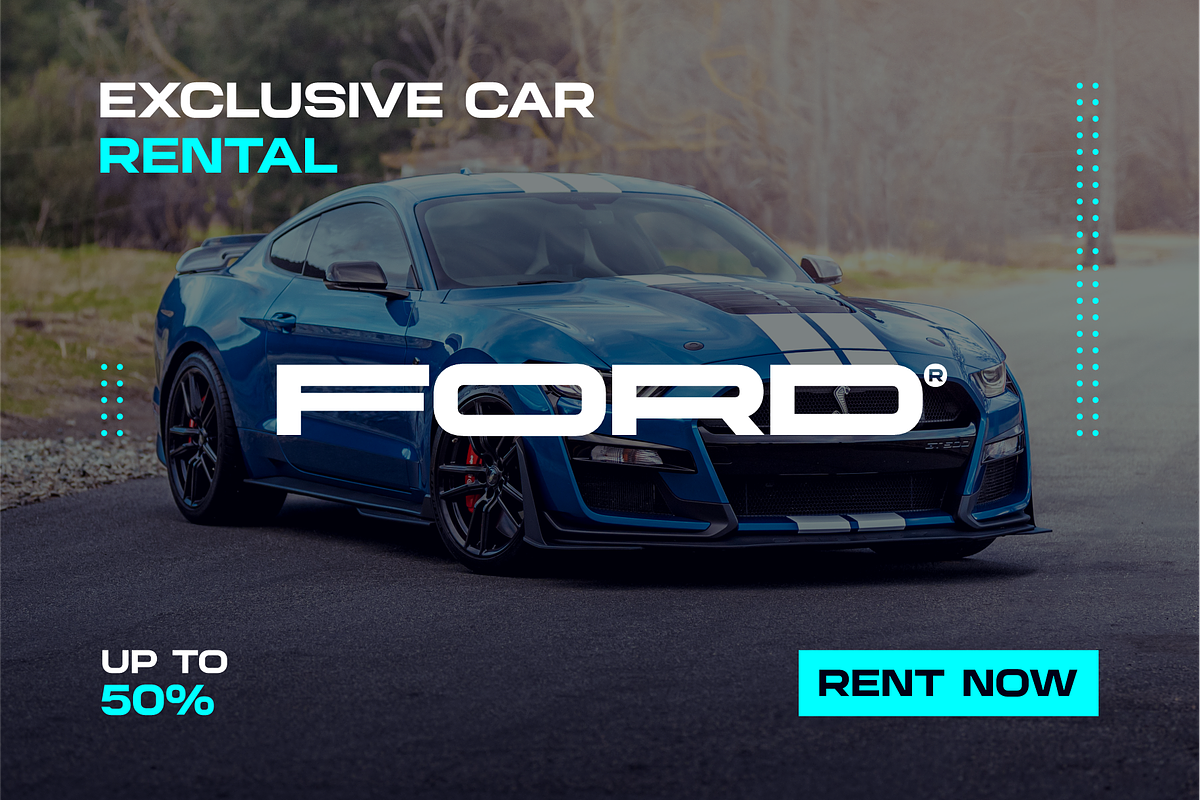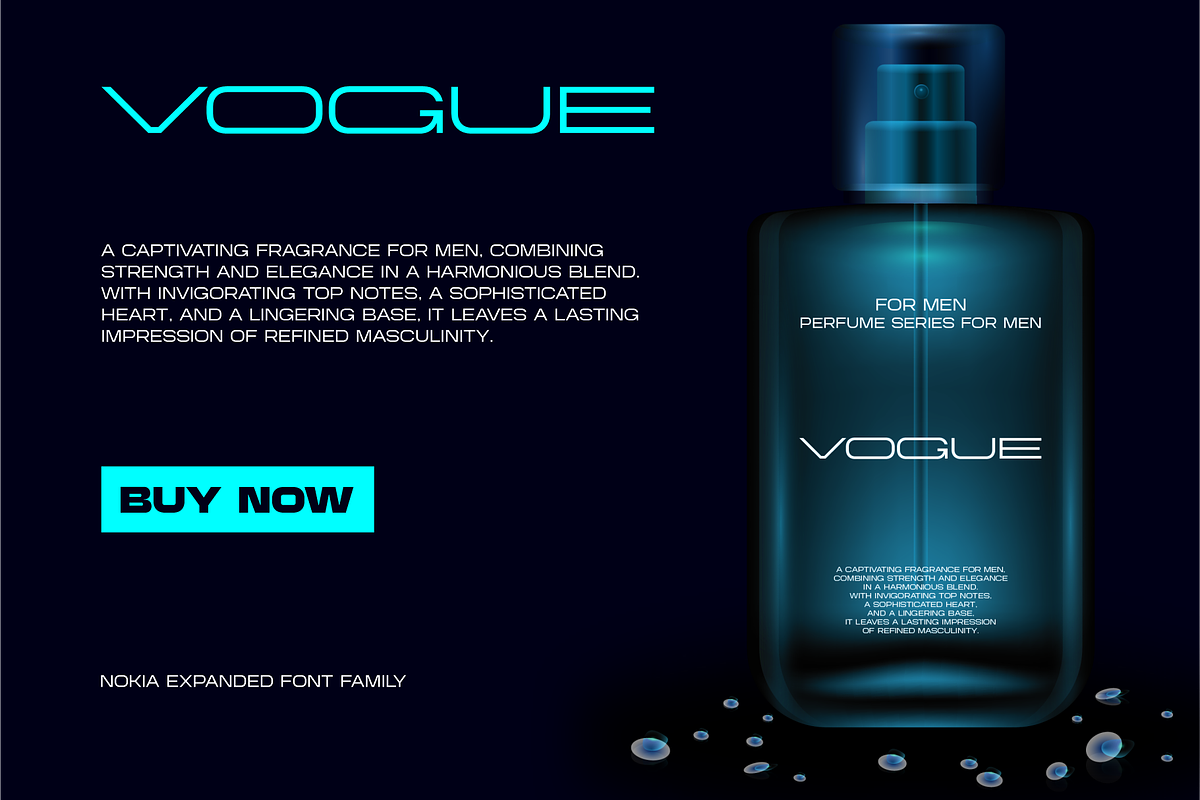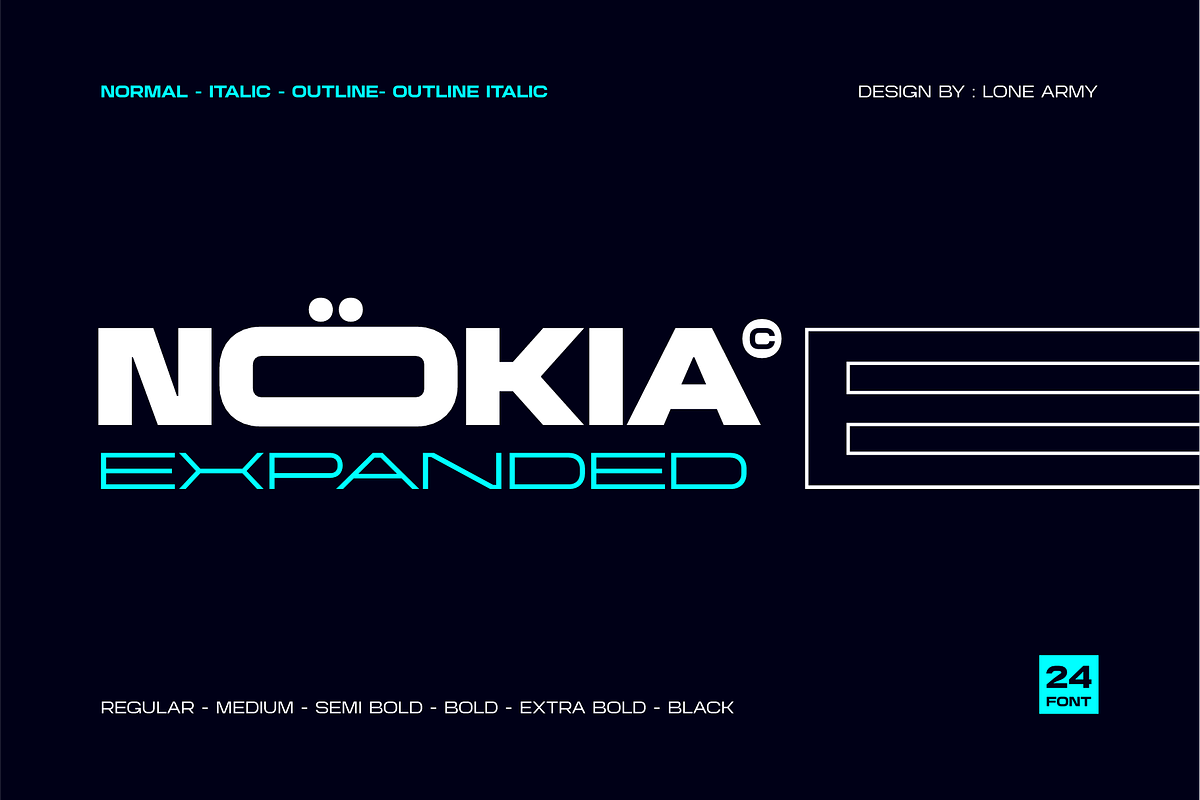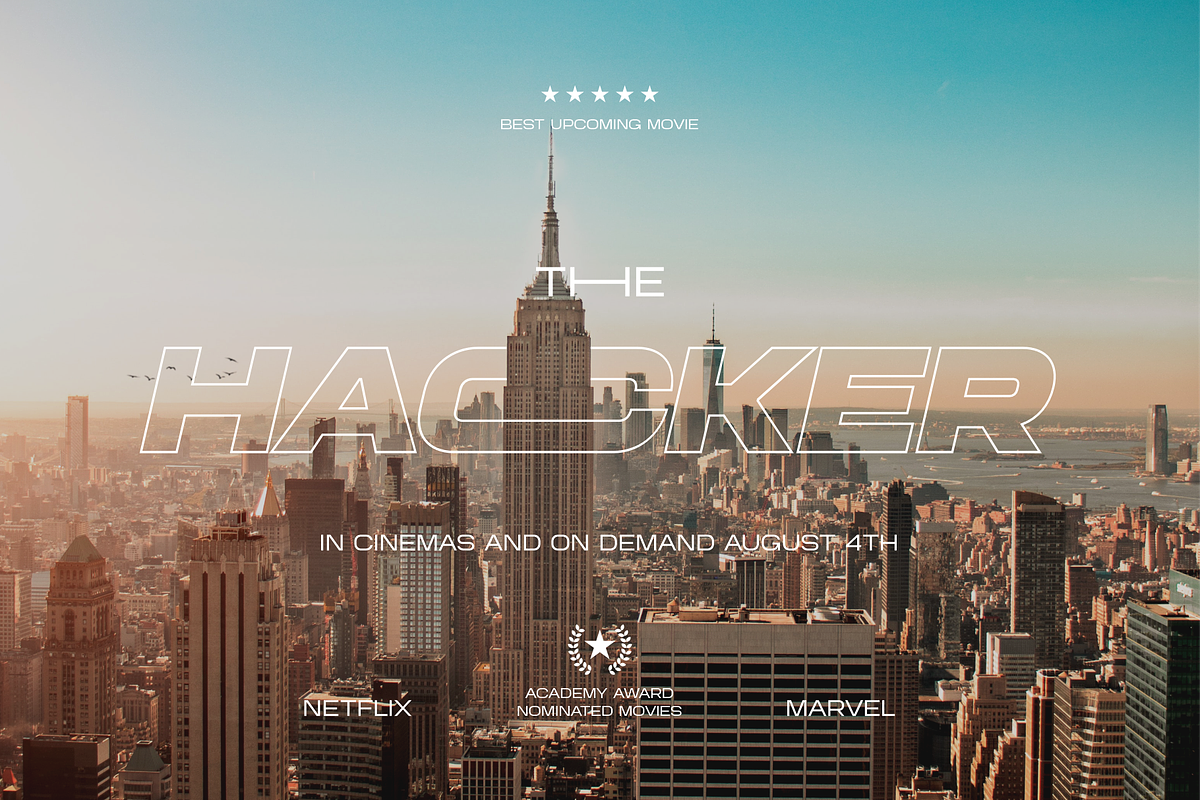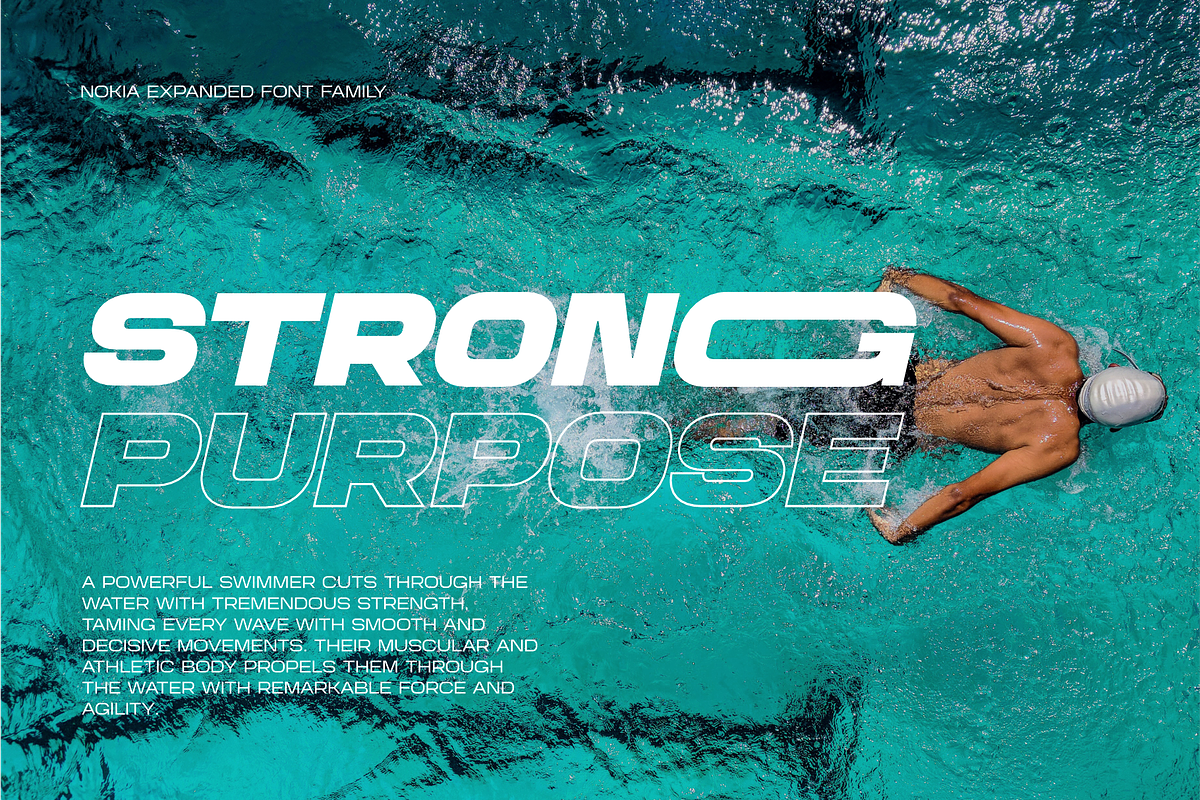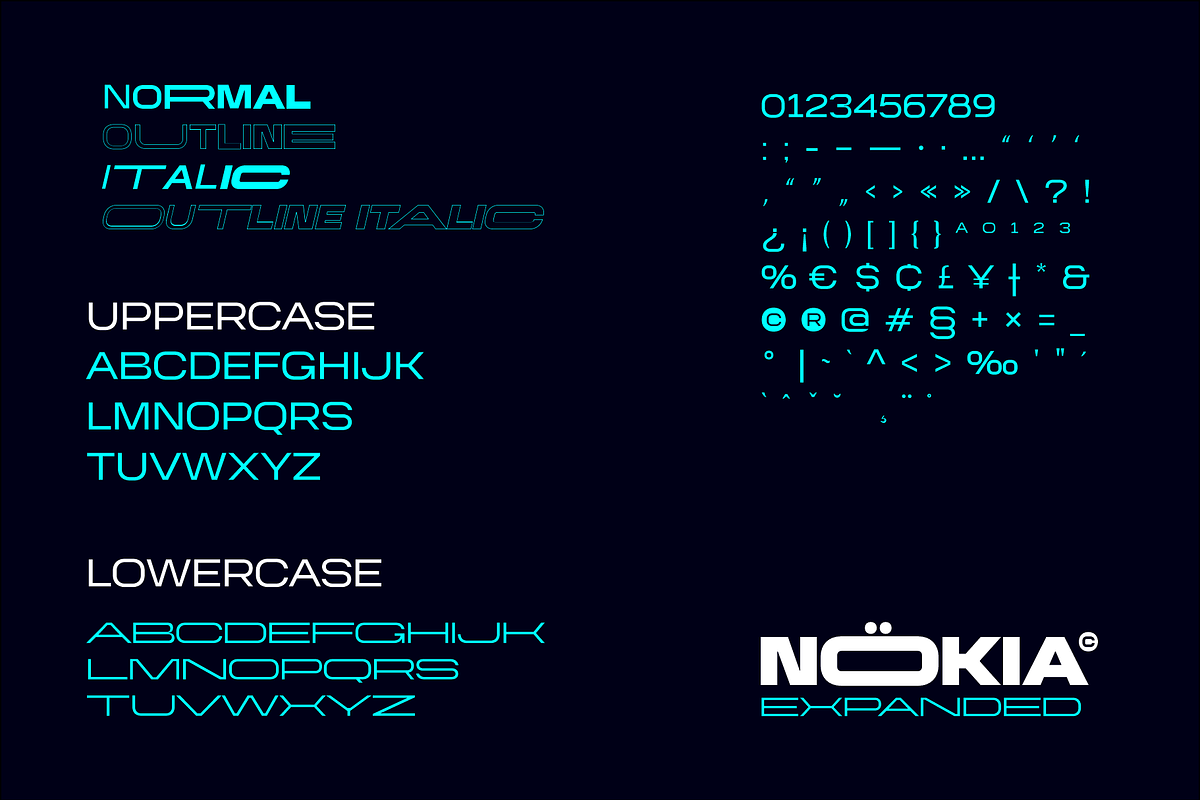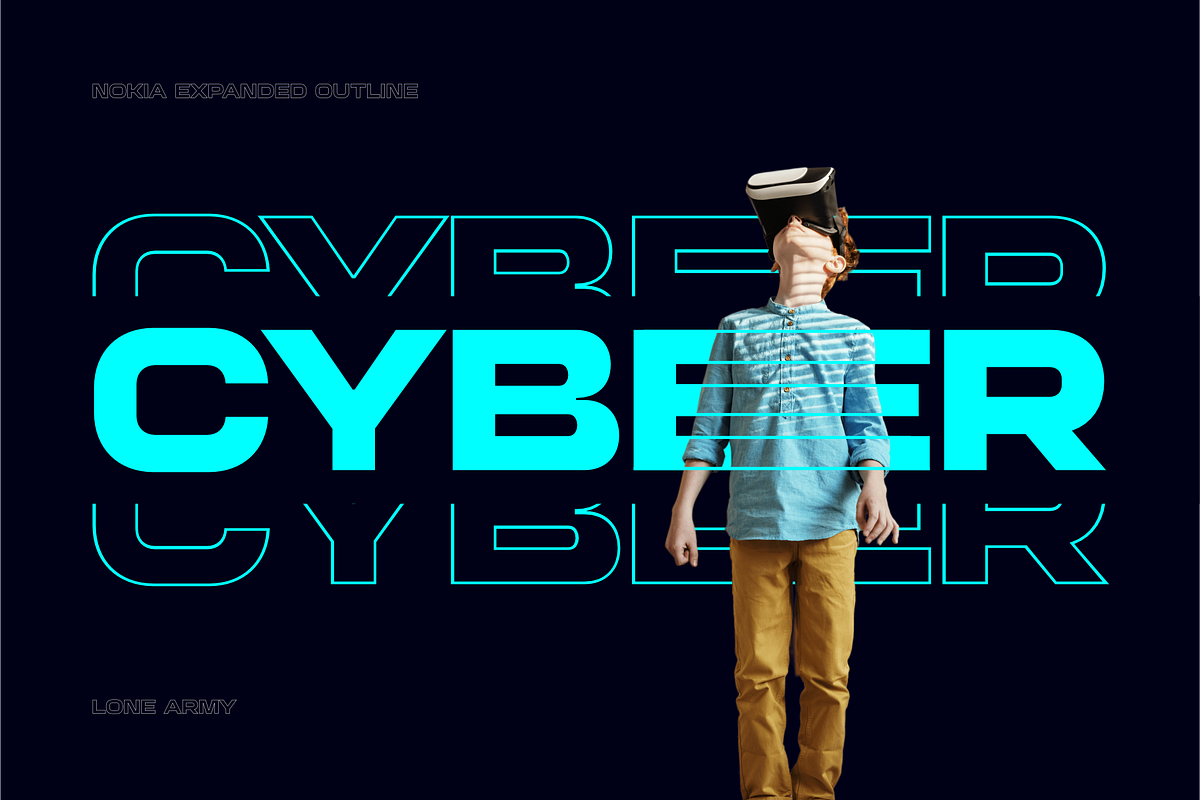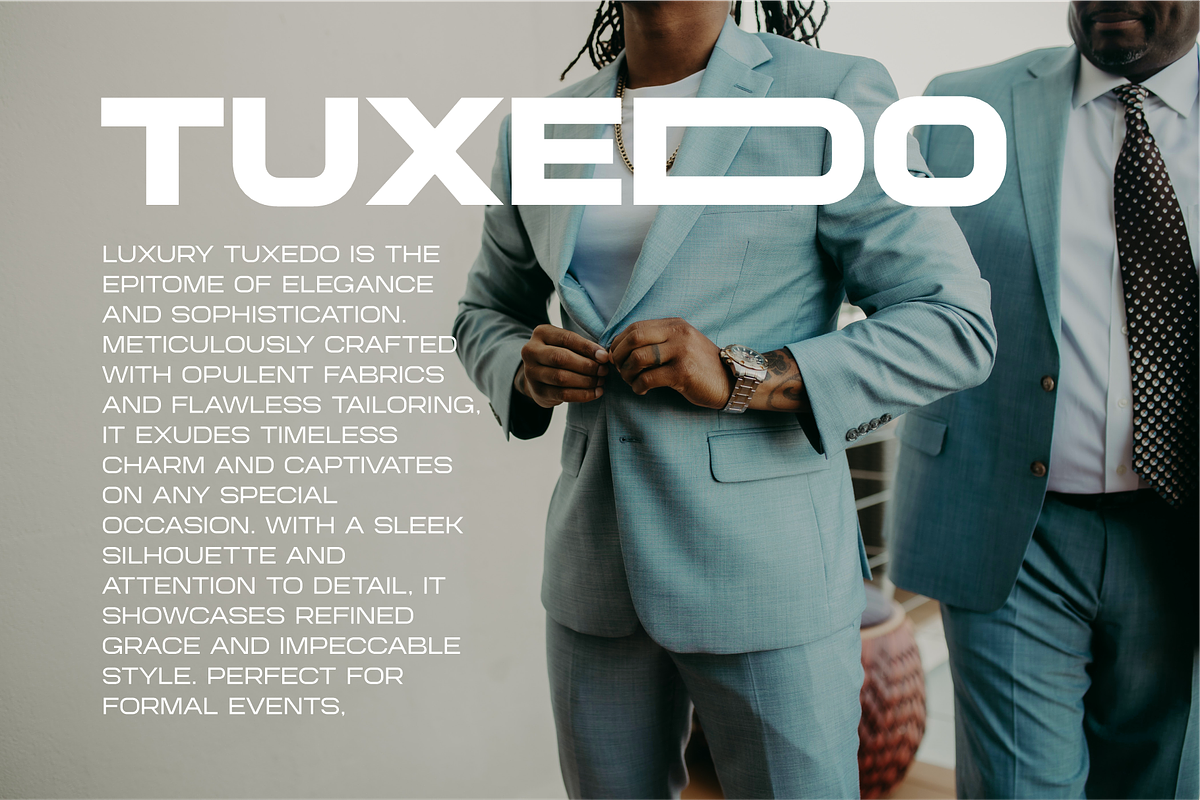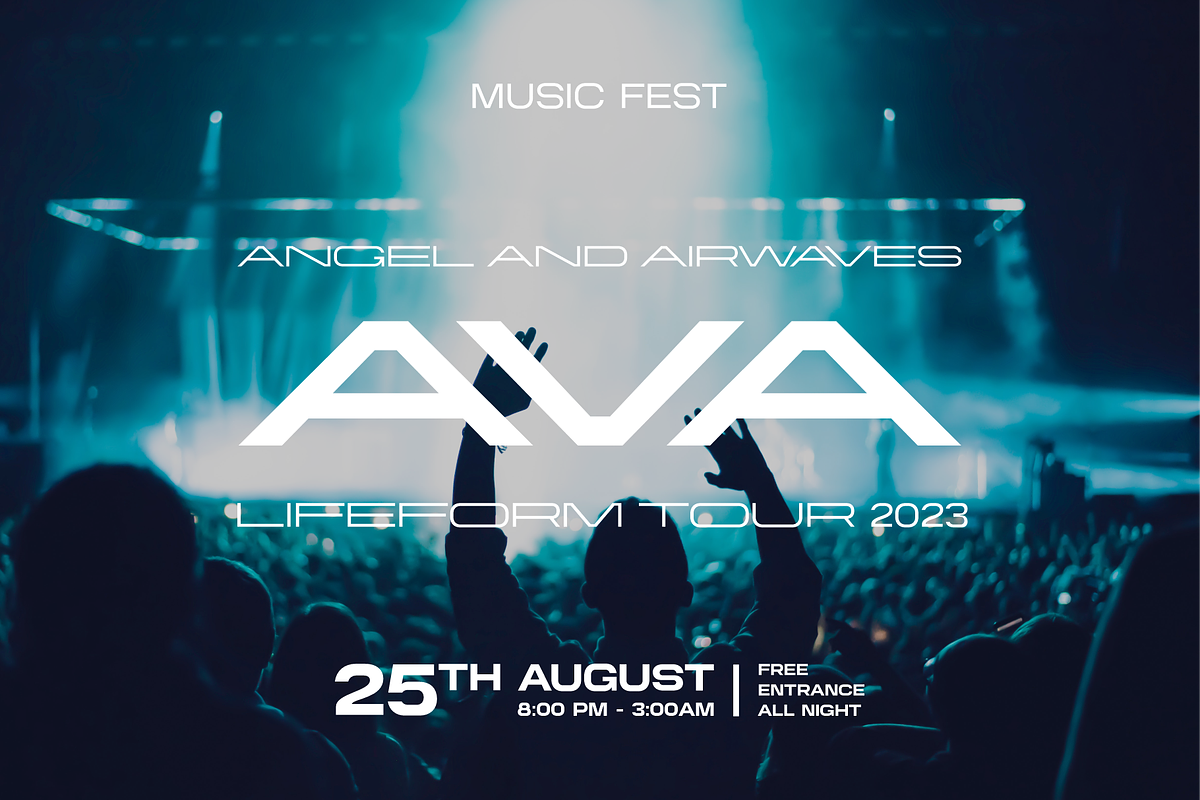
Nokia Expanded
Introducing Nokia Expanded - a bold and expansive font designed to capture attention. Inspired by the iconic Nokia brand, this typeface embodies a sense of reliability and modernity.
With its bold strokes and expanded proportions, Nokia Expanded commands a strong presence in any design. The font's clean lines and geometric forms lend a touch of precision and sophistication, reflecting Nokia's commitment to quality and innovation.
Ideal for various applications, including branding, advertising, and display graphics, Nokia Expanded ensures legibility and impact. Its bold and expansive nature makes it suitable for creating attention-grabbing headlines and eye-catching designs.
Embrace the essence of Nokia with Nokia Expanded, a font that encapsulates reliability and modernity while adding a distinctive touch to your projects.